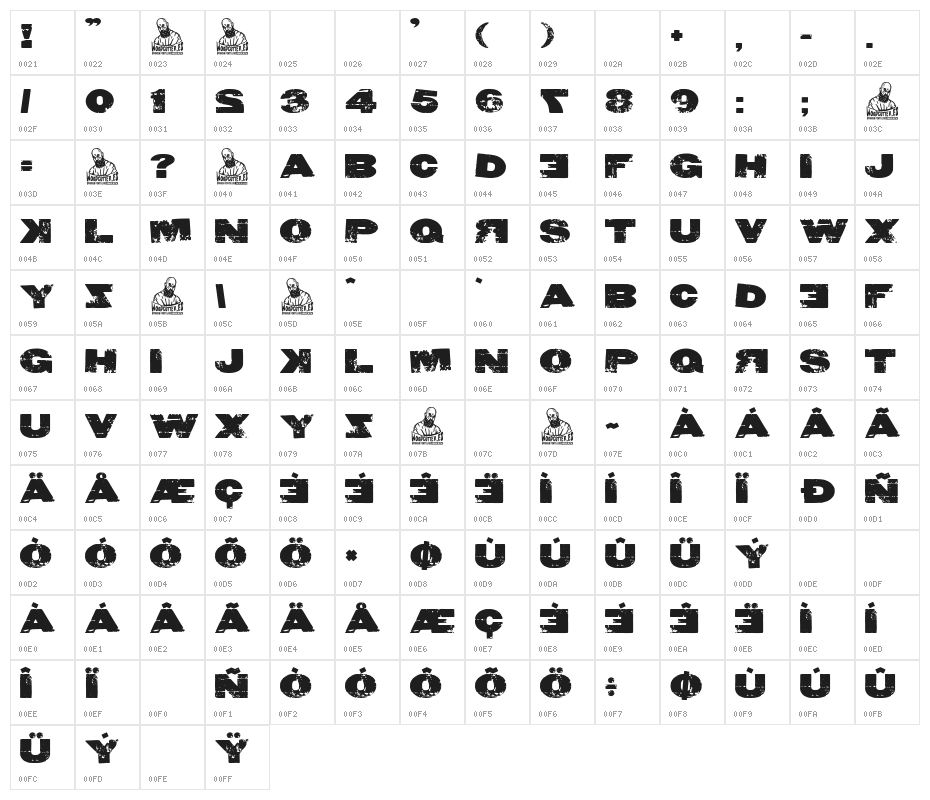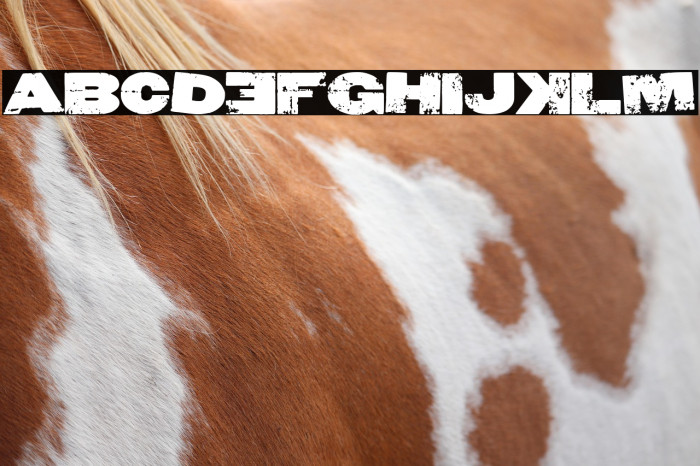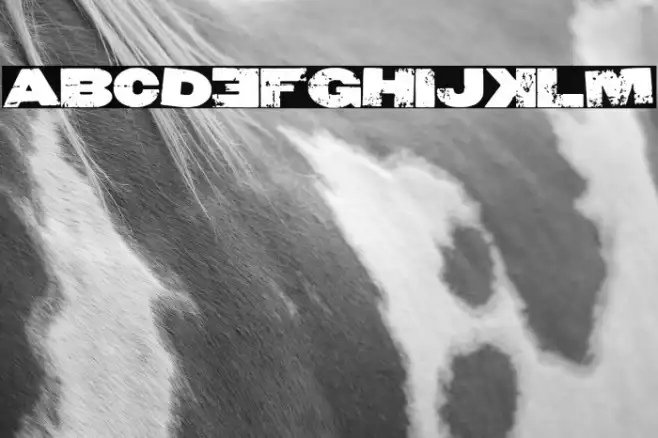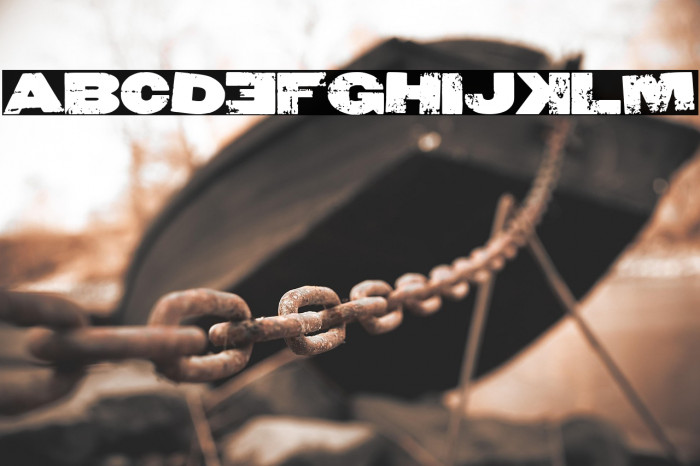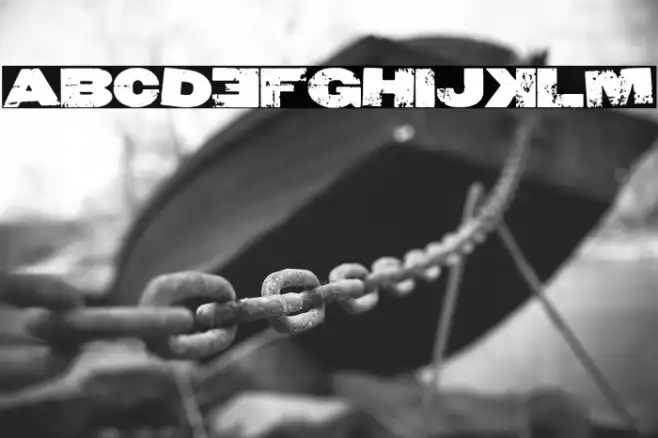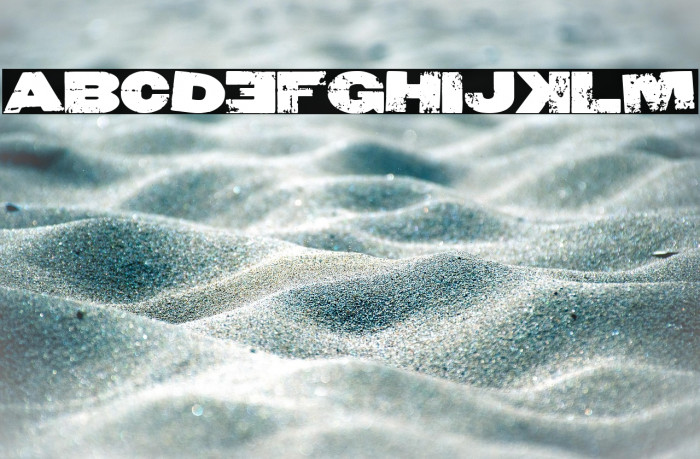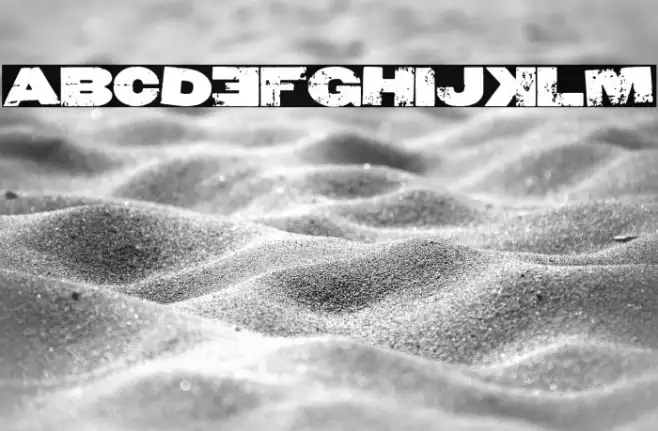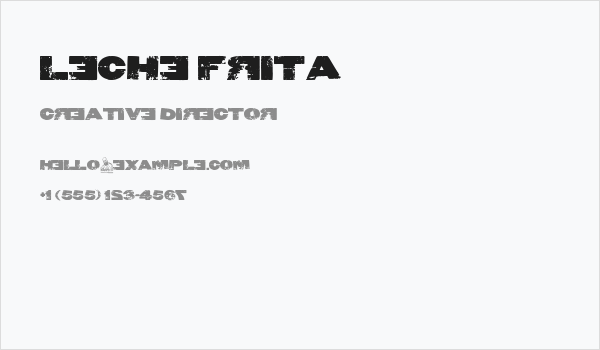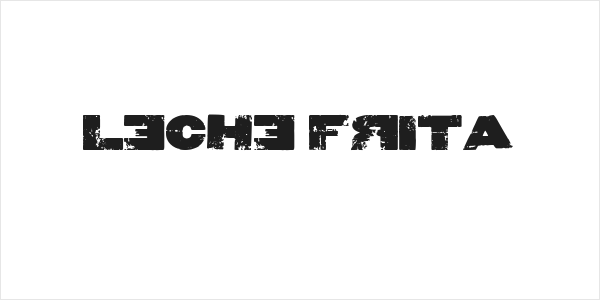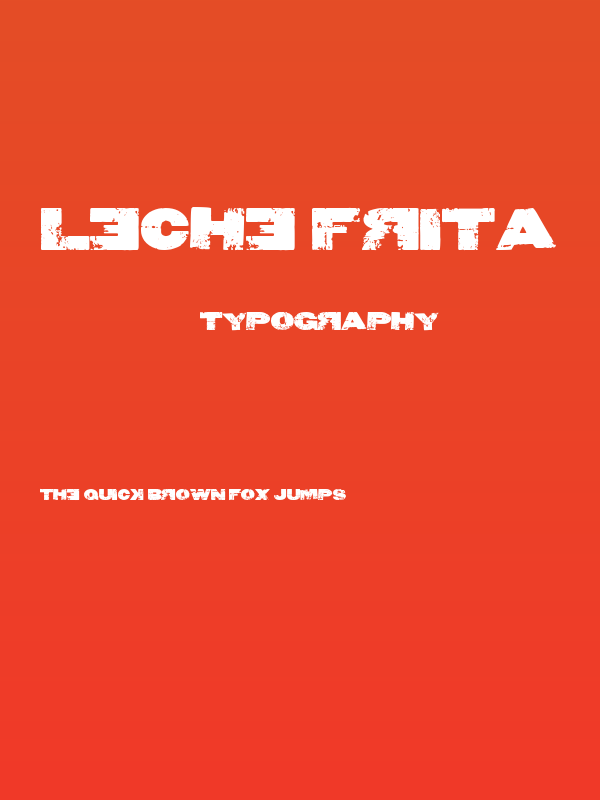
Leche Frita Font
Leche Frita Description
This font features a bold, distressed style with a grunge texture that gives it a rugged and worn appearance. The characters are thick and heavy, with uneven edges and a rough, textured finish that adds a sense of depth and character. The uppercase and lowercase letters maintain a consistent weight, while the numbers and special characters follow the same distressed aesthetic. This font is ideal for projects that require a bold statement or an edgy, urban feel. Its unique style makes it stand out, capturing attention with its raw and gritty look.
| Overall Style | Grunge, Urban, Edgy |
| Proposed Projects | Ideal for posters, album covers, streetwear branding, and urban-themed designs. |